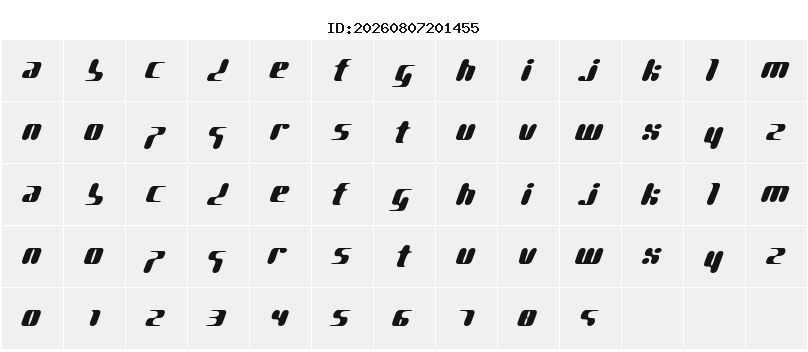
pg GENE Preview
• Font Name: pg GENE
• Full Font Name: pg GENE
About pg GENE.ttf
pg GENE.ttf is a modern, elegant sans-serif font designed for ultimate readability and visual harmony. Perfect for branding, headlines, web design, and print materials.